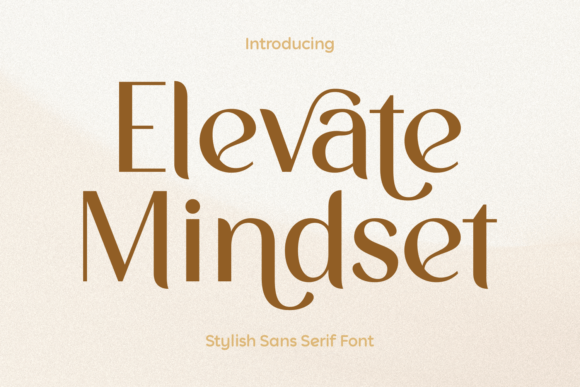
Elevate Your Brand with Elevate Mindset Font: The Ultimate Typeface for Modern Visuals
In the world of typography, fonts play a crucial role in shaping the visual identity of a brand. With the right font, businesses can convey their message, express their personality, and connect with their audience on a deeper level. If you’re looking for a typeface that exudes elegance, sophistication, and modernity, look no further than Elevate Mindset Font. In this article, we’ll explore the features, benefits, and uses of Elevate Mindset, and why it’s the perfect choice for beauty branding, wellness logos, social quotes, and modern packaging.
What is Elevate Mindset Font?
Elevate Mindset is a chic and expressive sans serif font that boasts fashionable curves and editorial charm. Designed with high contrast strokes and sophisticated details, this typeface is perfect for brands that want to elevate their visuals and make a lasting impression. With its unique blend of modernity and elegance, Elevate Mindset is ideal for businesses that want to stand out in a crowded market.
Key Features of Elevate Mindset Font
- High Contrast Strokes: Elevate Mindset features high contrast strokes that give it a distinctive and sophisticated look. The contrast between thick and thin strokes adds depth and elegance to the font, making it perfect for headlines, titles, and logos.
- Sophisticated Details: The font is designed with sophisticated details that add a touch of luxury and refinement. From the subtle rounded edges to the elegant letterforms, every detail has been carefully crafted to create a truly unique typeface.
- Chic and Expressive: Elevate Mindset is a chic and expressive font that is perfect for brands that want to make a statement. With its fashionable curves and editorial charm, this font is sure to turn heads and leave a lasting impression.
- Versatile: Elevate Mindset is a versatile font that can be used for a variety of applications, from beauty branding and wellness logos to social quotes and modern packaging.
Benefits of Using Elevate Mindset Font
So why choose Elevate Mindset Font for your branding and design needs? Here are just a few benefits of using this amazing typeface:
- Elegance: Elevate Mindset exudes elegance and sophistication, making it perfect for brands that want to convey a sense of luxury and refinement.
- Modernity: The font’s modern design and high contrast strokes make it perfect for businesses that want to appear contemporary and forward-thinking.
- Versatility: Elevate Mindset can be used for a variety of applications, from digital media to print materials.
- Uniqueness: With its unique blend of modernity and elegance, Elevate Mindset is sure to help your brand stand out in a crowded market.
Uses of Elevate Mindset Font
So what can you use Elevate Mindset Font for? Here are just a few ideas:
- Beauty Branding: Elevate Mindset is perfect for beauty brands that want to convey a sense of elegance and sophistication.
- Wellness Logos: The font’s modern design and high contrast strokes make it perfect for wellness logos that want to appear contemporary and forward-thinking.
- Social Quotes: Elevate Mindset is ideal for social quotes and social media graphics that want to make a lasting impression.
- Modern Packaging: The font’s unique blend of modernity and elegance makes it perfect for modern packaging that wants to stand out on store shelves.
Tips for Using Elevate Mindset Font
Here are a few tips for using Elevate Mindset Font effectively:
- Use it sparingly: Because Elevate Mindset is such a distinctive font, it’s best to use it sparingly to avoid overwhelming your audience.
- Pair it with a neutral font: Pair Elevate Mindset with a neutral font to create visual interest and add depth to your designs.
- Experiment with colors: Elevate Mindset looks great in a variety of colors, so don’t be afraid to experiment and find the perfect hue for your brand.
In conclusion, Elevate Mindset Font is a chic and expressive sans serif font that is perfect for brands that want to elevate their visuals and make a lasting impression. With its high contrast strokes, sophisticated details, and fashionable curves, this typeface is ideal for beauty branding, wellness logos, social quotes, and modern packaging. Whether you’re looking to convey elegance, sophistication, or modernity, Elevate Mindset is the perfect choice for your branding and design needs.
- What is Elevate Mindset Font? Elevate Mindset Font is a chic and expressive sans serif font with fashionable curves and editorial charm.
- What are the key features of Elevate Mindset Font? The font features high contrast strokes, sophisticated details, and a versatile design.
- What are the benefits of using Elevate Mindset Font? The benefits of using Elevate Mindset Font include elegance, modernity, versatility, and uniqueness.
- What can I use Elevate Mindset Font for? You can use Elevate Mindset Font for beauty branding, wellness logos, social quotes, and modern packaging.